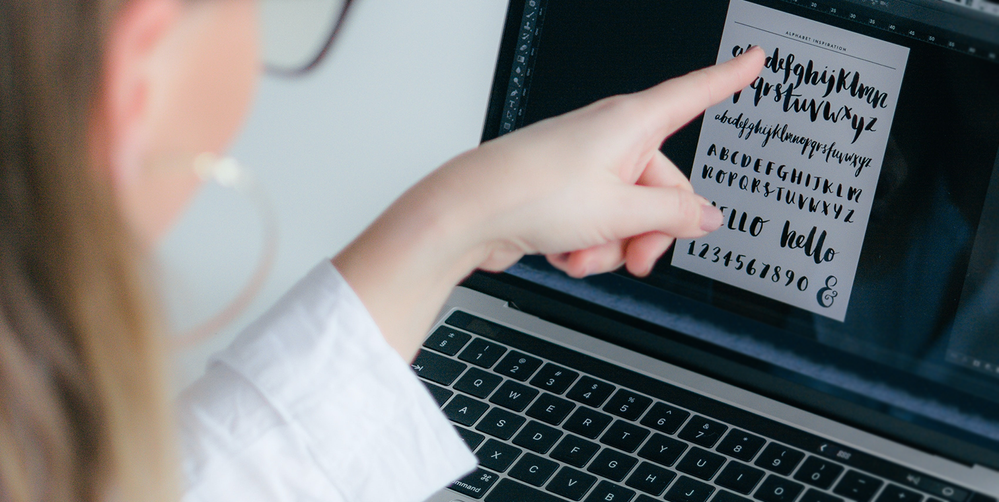
Most of today’s computers come with a library of installed fonts, known as system fonts. These are typically fine for most things—like email, spreadsheets, and documents—but when it comes to creative work, like e-learning, you might need to look beyond system fonts for something with a little more personality.
Let’s say you’ve got a special project coming up and you’d like a font that works with the subject matter. Where do you start?
The internet, of course! Finding fonts on the web is super-easy, but how can you tell which ones are safe to use? Let’s take a closer look.
Free Fonts
Free fonts are obviously the easiest on the old pocketbook, and they’re great when you’re looking to prototype different visual design options.
However, free fonts do come with some limitations. For instance, it’s common for font designers to offer a free version of their font in only one stroke weight—like bold, light, or regular. All of the other stroke weights may cost money.
Also, with free fonts, you tend to get what you pay for. Font designers might not invest as much time on the finer details with a font they’re giving away. They might cut corners on things like proper kerning—the spacing between characters—or they might choose to leave out special characters entirely. Fonts that aren’t properly kerned can be hard to read and might not render or scale well on different devices. And missing special characters can force you to use a mish-mash of similar fonts to try and maintain some visual cohesion in your design.
A final drawback with free fonts is that they are often just stolen licensed fonts, repackaged with the copyright removed. This means you could end up using a “free” front illegally. Yikes!
How can you play it safe with free fonts? Well, just as you would with any other asset, always check the licensing to make sure it’s free for commercial use. When you download the font file, look for a “readme” text file in the zip folder. These generally contain the licensing terms and conditions. If the downloaded “free” font doesn’t have these terms and conditions spelled out … be cautious.
There are many great sources for free, high-quality fonts on the web that you can trust. My go-to is Google Fonts, a library of more than a thousand free and open-source font families. I use a ton of them in my Storyline 360 projects. Google Fonts always look great and provide a complete set of special characters to work with, and I love the variety of styles.
One last note about free fonts: Although some pre-installed Windows Fonts can be published to the web without purchasing an additional license, others, like Arial, are owned by Monotype and are subject to a web font license. Personally, I’ve found Open Sans, Lato, and Source Sans Pro—free web fonts installed with Storyline 360—to be good substitutes for Arial. But if you’re already using a lot of Arial in your e-learning, you’ll want to learn more about Monotype licensing here.
Paid Fonts
If you have the budget for assets, why hassle with finding free fonts when you can just purchase the exact font you need for your project? Fonts for purchase tend to be higher quality and are more likely to give you access to a full assortment of stroke weights and special characters.
Many people decide to purchase a font to mitigate any legal concerns over licensing. However, paid font licensing can still be a little tricky. Some font designers require separate payments for print and web versions of the font. As such, it always pays to read the fine print to make sure you’re allowed to use your purchased font the way you intend.